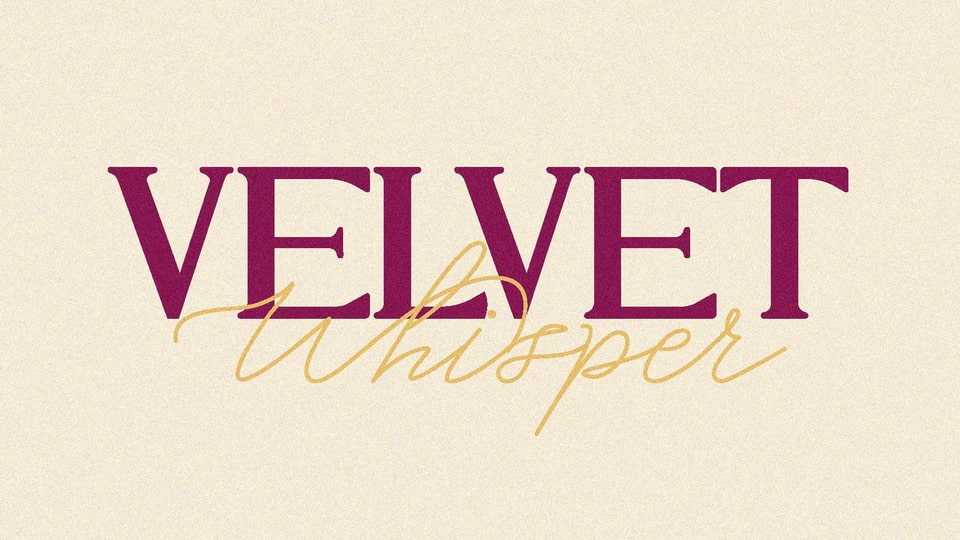
Download Velvet Whisper font, a sophisticated serif typeface coupled with a playful handwritten script. Embracing a fusion of modern elegance and whimsical charm, Velvet Whisper delivers a touch of luxury and refinement to a variety of creative projects.
Designer: Helotype